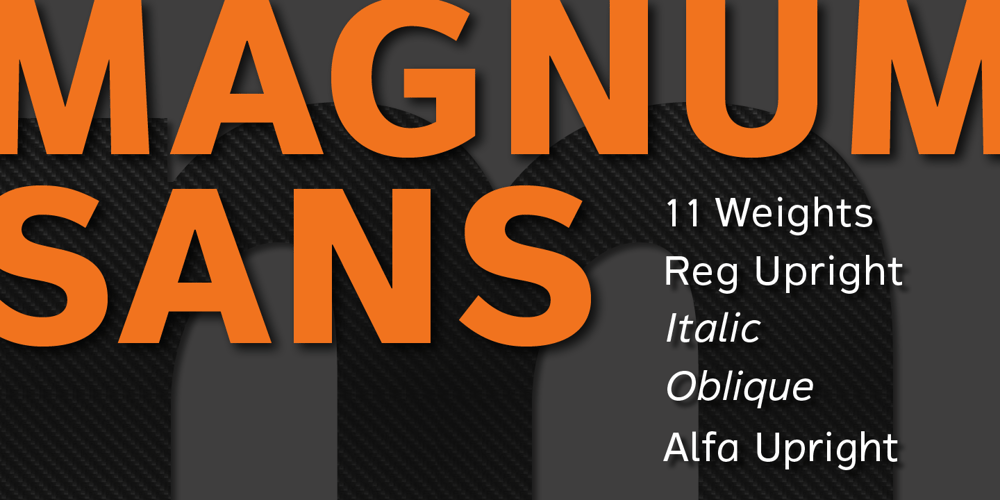
Magnum Sans
Magnum Sans font
Magnum Sans Font Family was designed by Michael Hagemann and published by FontMesa. Magnum Sans contains 43 styles and family package options. Magnum Sans is a strong neutral sans serif consisting of eleven weights with true Italic, Oblique and an alt upright set called Alfa. The definition of Magnum is a large wine bottle that’s twice the capacity of one 750ml bottle, today the name is used in any product offering double the capacity, Magnum Sans achieves this by offering two slanted and two upright versions plus a standard and pro set. Designed to be highly readable Magnum Sans is ideal for text, signage, headlines and media broadcasting or anywhere else quick readable lettering is needed. This standard version supports characters sets for central and eastern European countries with code-pages of 1252 Latin1, 1250 Latin 2, 1257 Baltic and 1254 Turkish. Note: for additional language support, please see our Magnum Sans Pro family, which includes Vietnamese, PinYin and Greek.